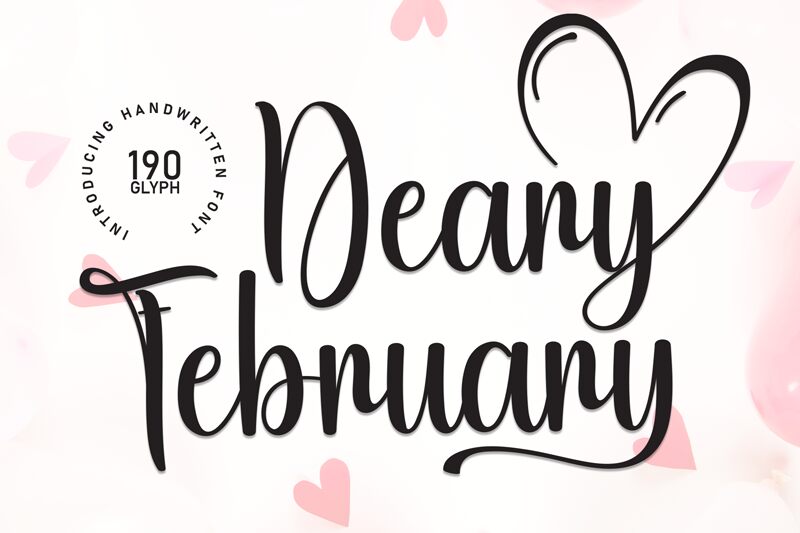
Deary February font is a free font featuring an elegant style with a modern touch. The romantic handwritten script carries the perfect mood for private notes and those close, intimate messages in particular. It has a fluid movement and an expressive look that appears both charming and approachable. Each character looks personal and friendly and maintains its own attractive appearance within the entire letter combination.
If designed as a company slogan, it will help to support your campaign. A stylish logo for a brand or a product will appear attractive and memorable. Blogs and other personal platforms will look more professional if you choose this typeface as a complementary or primary one. Stamps, watermarks, and other security elements that need to be discreet can reveal themselves in a fashionable way if they are written in this font.